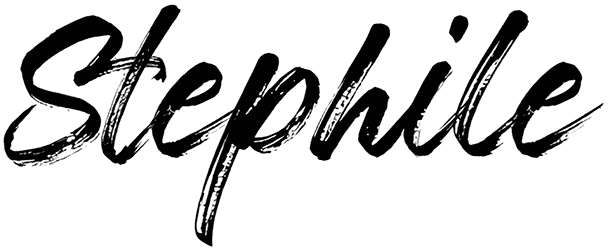
Stephile Font
Want to write something down with a marker you’re afraid is gonna dry out any minute? Well, with Stephile you can perfectly capture that kind of lettering style without the constant fear of actually running out of ink halfway through your message.
This very simple effect brush font on your text gives the audience the kind of impression that it’s been written urgently, so more attention is required. Does that description fit your art gallery business card, summer sales event posters, or what?